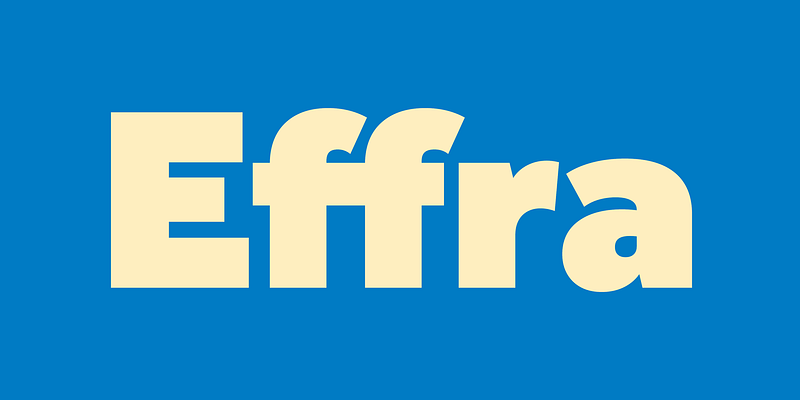
Effra CC Font Free Download is a modern geometric sans-serif typeface known for its clean lines, humanist touches, and excellent legibility. Originally designed by Dalton Maag, Effra is versatile and professional—making it ideal for branding, corporate design, editorial content, digital interfaces, and multilingual communications when paired with its Arabic counterpart.
With its minimal yet warm character, Effra CC Font offers a balanced typographic voice that works beautifully across both headlines and body text. Its geometric structure provides clarity, while subtle humanist elements ensure approachability and versatility in tone.